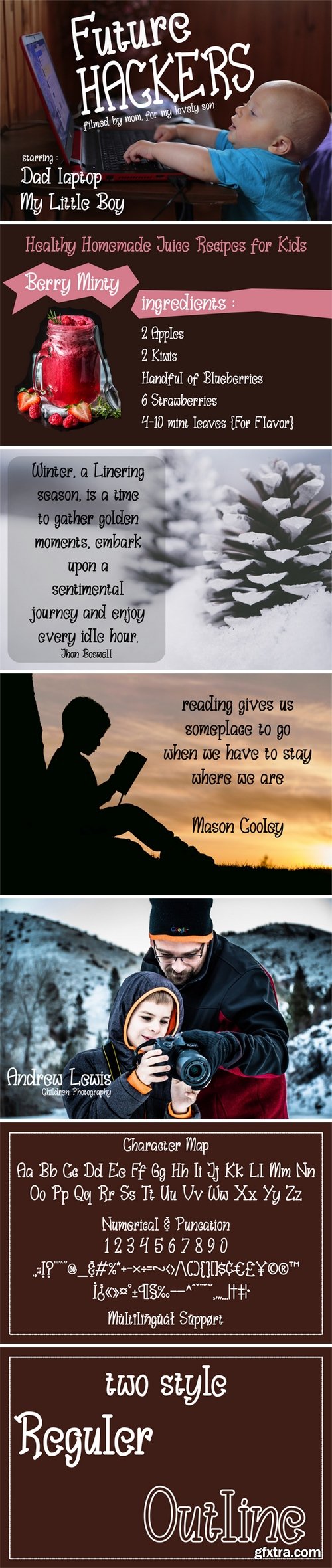
CM - Bungah | 柴拙字体 3347954
CM - Bungah | Cute Font 3347954
introduce, my first font in 2019, takes a childish theme, because we have to start the year happily, fonts are taken from handwritten sketches and digitized with love, to produce satisfying results. This font fits your project very well with a childish theme whether it's for your logo,quotes, clothes, mugs, magazines and other projects this font support 18 multilingual languages : Afrikaans Albanian Catalan Danish Dutch English Estonian Finnish French German Icelandic Italian Norwegian Polish Portugese Spanisch Swedish Zulu